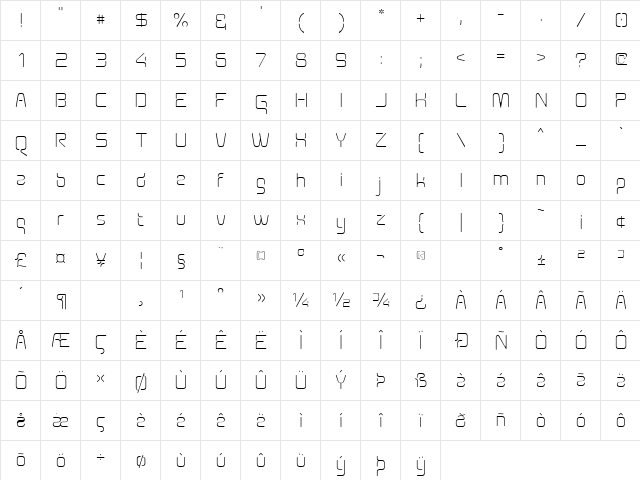
Aunchanted Xspace Thin Regular
Design Context for Aunchanted Xspace Thin Typeface
Aunchanted Xspace Thin takes a measured approach to typography — its balanced proportions and neutral character make it a reliable workhorse for both digital and print work. The delicate stroke weight brings airiness and refinement to layouts.